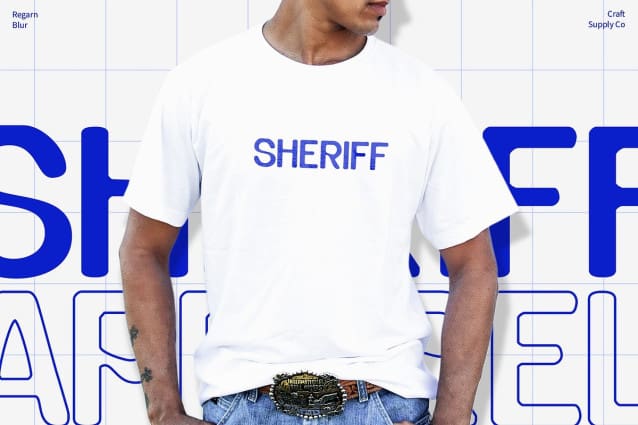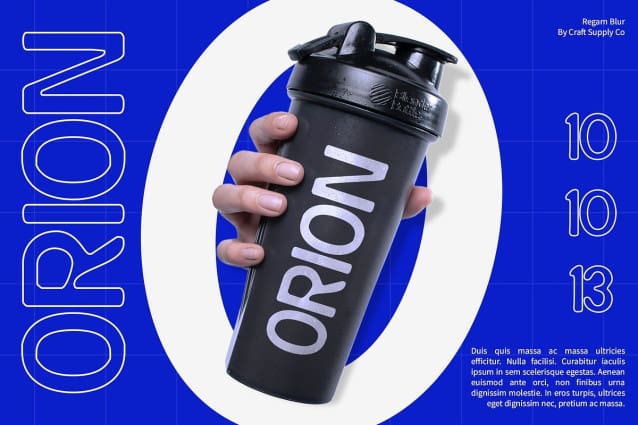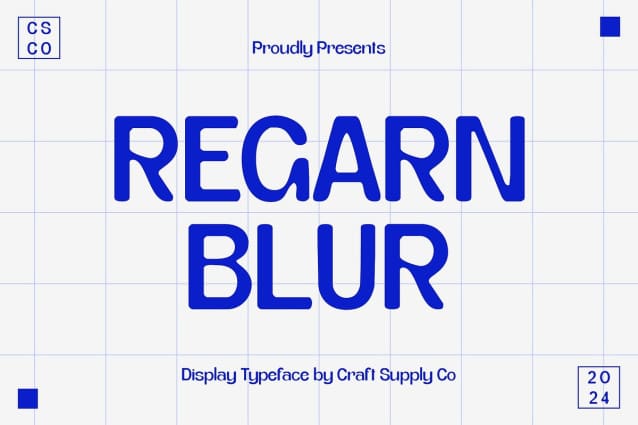
Regarn Blur Font
Regarn Blur Font is a modern sans-serif font featuring a sleek design with smooth lines that exude a contemporary and current impression. Its clean and minimalist aesthetic makes it perfect for designs that prioritize a modern look.
Introducing an innovative touch, Regarn Blur incorporates a blur effect that adds an intriguing visual dimension to the font. This effect enhances its modern appearance, making it stand out in experimental and avant-garde design contexts.
Designed for projects focusing on modernity and experimentation, Regarn Blur is ideal for websites, digital platforms, and promotional materials that require a unique and contemporary typeface. Its blend of clean lines and blur effect offers a refreshing take on modern typography.
Despite its experimental nature, Regarn Blur maintains versatility across various design applications. Whether used for branding, editorial layouts, or signage, this font ensures clarity and impact while pushing boundaries in visual expression.
In conclusion, Regarn Blur is a modern sans-serif font that combines a contemporary design with an integrated blur effect. Ideal for designs focusing on a modern and experimental look, this font offers a unique visual appeal that enhances any project with its innovative and dynamic presence.